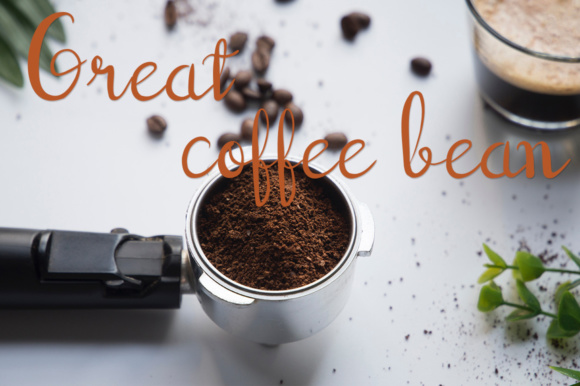
Discover the Magic of Good Vibe Font
As a designer, there’s nothing quite like the thrill of stumbling upon the perfect font for a project. It’s like the pieces of a puzzle finally falling into place, and suddenly, your entire design comes alive. For me, that moment came when I discovered Good Vibe Font – a modern script that exudes warmth and personality.
Good Vibe Font is more than just a typeface; it’s a way to inject a little extra love and care into your designs. Whether you’re creating a whimsical wedding invitation or a bold personal brand, Good Vibe Font is the perfect companion. Its handwritten style is both elegant and approachable, making it a valuable addition to any designer’s toolkit.
Good Vibe Font Key Features
• Unique Characteristics: The Good Vibe Font features a unique, hand-drawn design with a mix of cursive and sans-serif elements, giving it a friendly and approachable feel.
Good Vibe Font Review
I’ve had the chance to work with the Good Vibe Font, and I must say it’s a delightful addition to any project. ✨ The font’s rounded edges and soft curves give it a friendly, approachable feel that’s perfect for designs that need to convey a sense of approachability and warmth.
The Good Vibe Font also works well for projects that require a playful touch. ✨ The font’s unique letterforms and quirky details add a layer of personality to designs, making them stand out from the crowd. I’ve particularly enjoyed using it for social media graphics and advertising campaigns where a lighthearted tone is key.
• ⚠️ Limited font size flexibility: The Good Vibe Font can become quite hard to read at smaller font sizes, which may limit its use in projects where text needs to be small.
• ⚠️ Not ideal for formal or corporate designs: The font’s playful nature may not be suitable for more formal or corporate projects where a more serious tone is required.
Overall, I think the Good Vibe Font is a great choice for designers looking to add a touch of personality to their projects. While it may have some limitations, its unique charm and friendly feel make it a valuable addition to any design toolbox.
Good Vibe Font is ideal for:
• Creatives and artists looking for a unique font style.
• Designers seeking a playful, energetic vibe for their projects.
• Brands aiming to add a touch of whimsy to their visual identity.